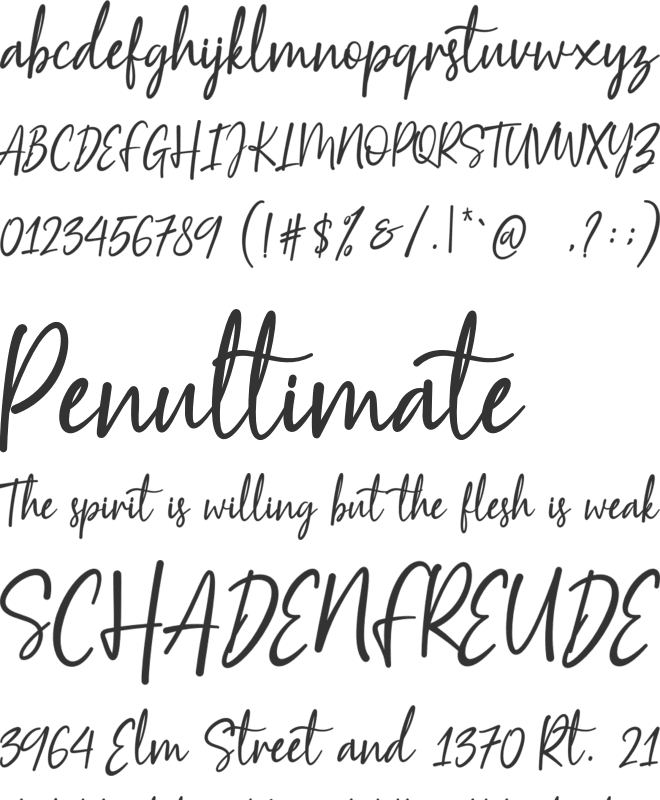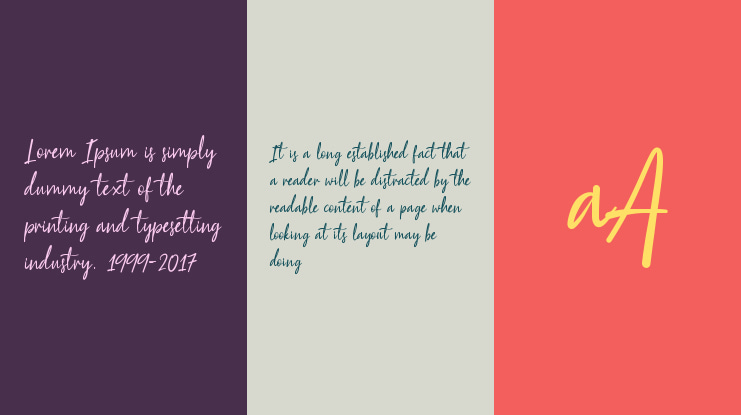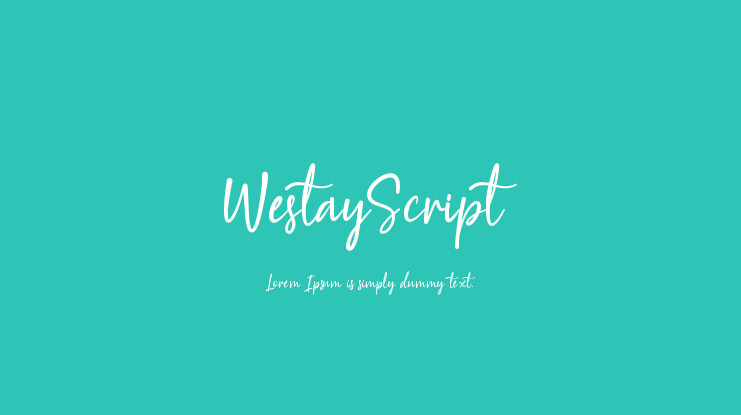
WestayScript Font
Westay Script is a simple script typeface which is simple and funny. Good for Logos, Titles, Tees Design or Indie flyer and Poster.